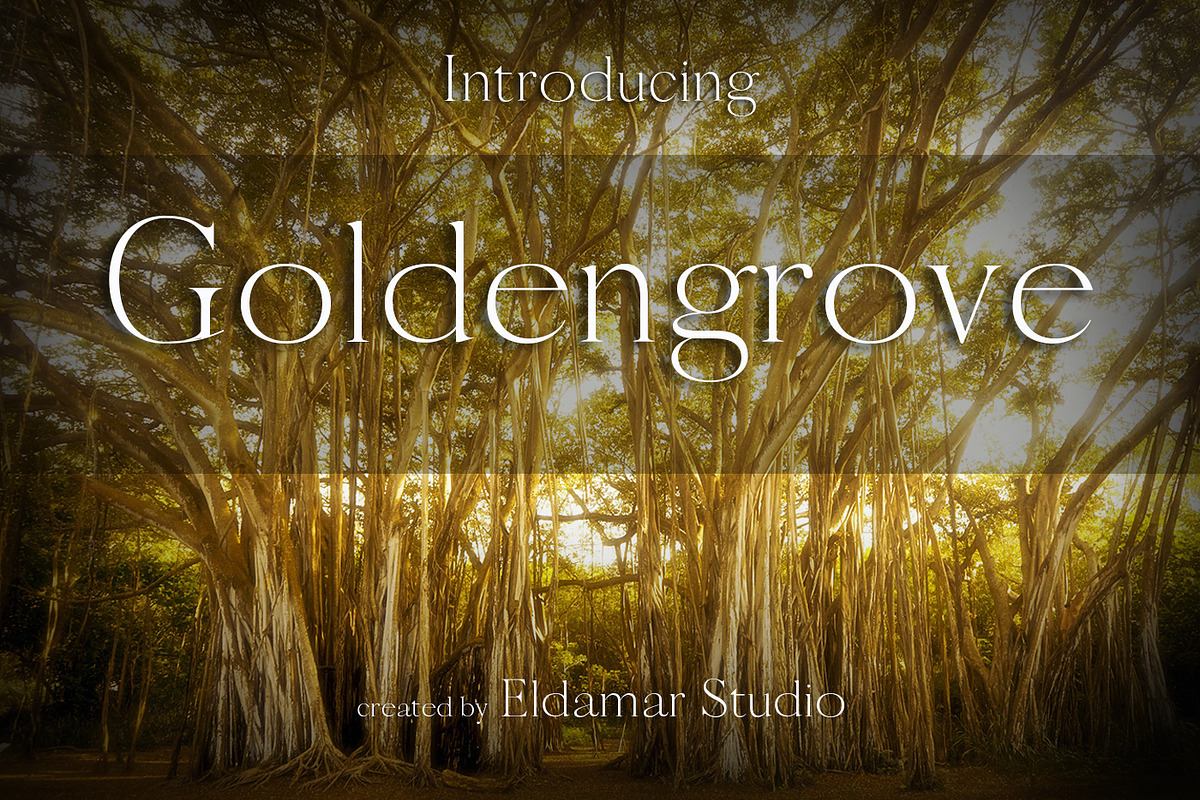
Goldengrove Font Free Download is a timeless and elegant typeface inspired by vintage literature, handwritten letters, and the golden age of print design. With its graceful curves and poetic flair, this font is perfect for wedding invitations, historical branding, editorial titles, book covers, and nostalgic packaging.
Goldengrove Font Free Download captures a romantic and refined aesthetic, blending classical charm with a modern sensibility. Its flowing strokes and delicate details bring a literary soul to every project—whether you're crafting heartfelt messages, designing boutique labels, or creating cozy café menus.
This font pairs beautifully with floral illustrations, watercolor textures, and serif companions. It thrives in soft palettes, warm themes, and any context that calls for sincerity and storytelling.
Let your designs bloom with character and charm using Goldengrove—where every letter feels like it’s been written with love and time.